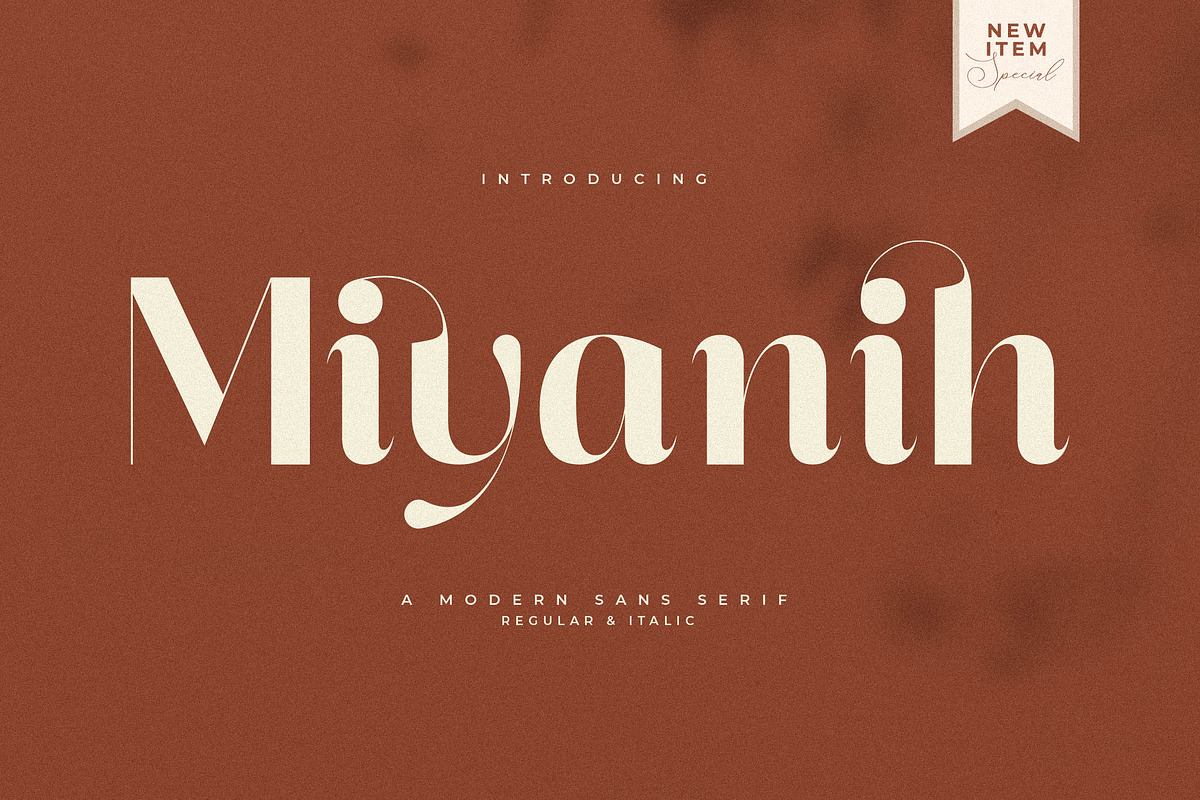
Miyanih A Modern Sans Serif Font Free Download is a clean, contemporary typeface designed for maximum versatility and readability. With its sleek lines and geometric precision, Miyanih is perfect for branding, website design, digital content, advertisements, and product packaging.
This font combines modern design with a timeless appeal, offering excellent legibility across different platforms. It includes uppercase and lowercase letters, punctuation, multilingual support, and is fully compatible with both Mac and Windows systems.